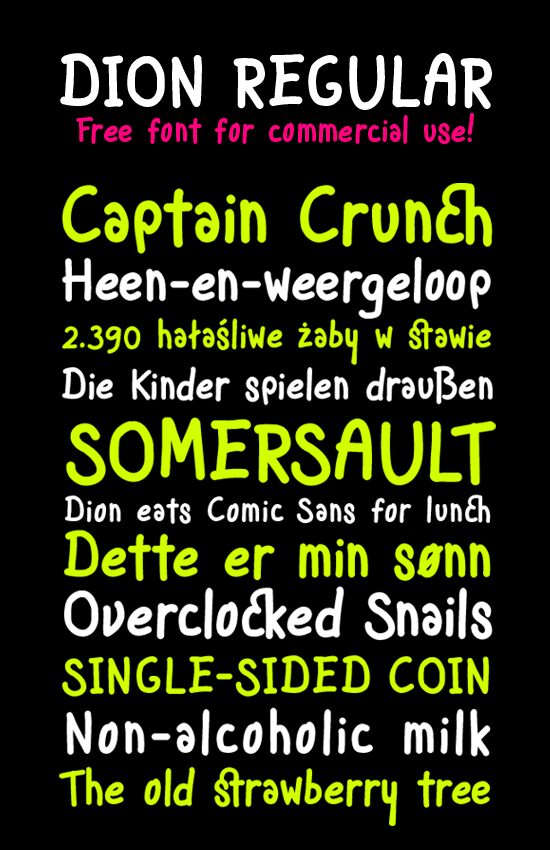
Dion by Martin Silvertant is a free hand-drawn brush font with broad, softly rounded strokes. Its letters lean and swell unevenly, giving the forms the lively wobble of quick painted lettering. The finish is smooth rather than bristly.
Those buoyant curves can echo simple character illustration, making the font useful for children's publishing and playful food packaging. It also suits comedy posters and casual merchandise, where the irregular silhouettes can become part of the artwork. In editorial design, cheerful cover lines can share the page with cartoon-like drawings.
Dion supports multiple languages and includes 23 ligatures accessible through the OpenType panel in design software.